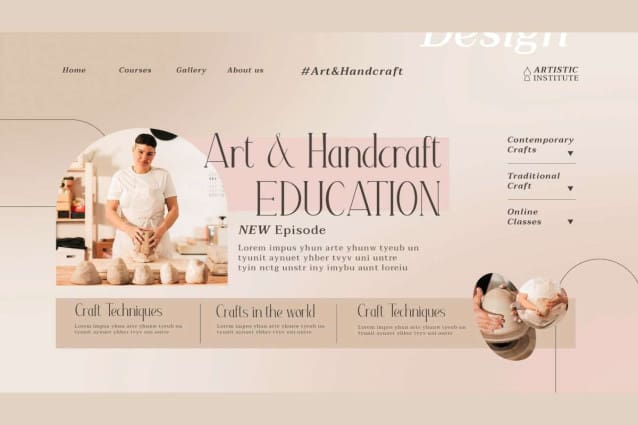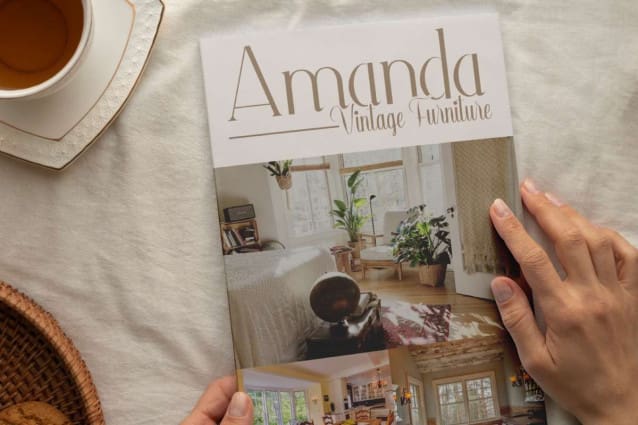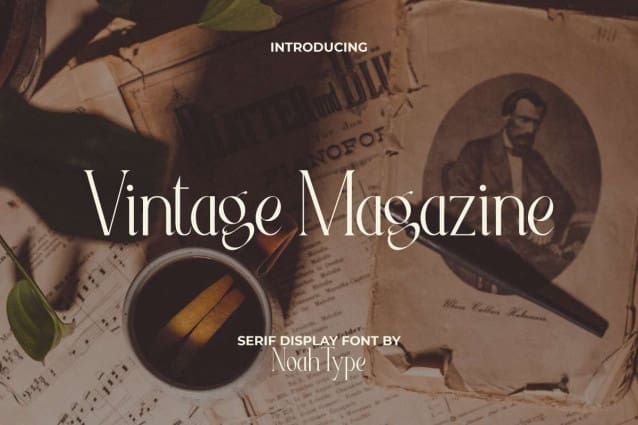
Vintage Magazine Font
Vintage Magazine Font is an aesthetic and classic timeless serif display font by NoahType. This font is suitable for those of you who want to bring a vintage style to every design you make. It will be good for any designs, such as brand image, business card, custom design, invitation, label, magazine, poster, product packaging, quote, signage, stationery, web, and more!
Vintage Magazine Font includes full set of Uppercase and Lowercase Basic Characters, Numerals, Punctuation, and Symbol. The characters of this font will give artistic looks and perfect choice for many industries, such as advertisement, art creative, café, event or festival, fashion, furniture, interior design, printing, publishing, salon spa, etc.